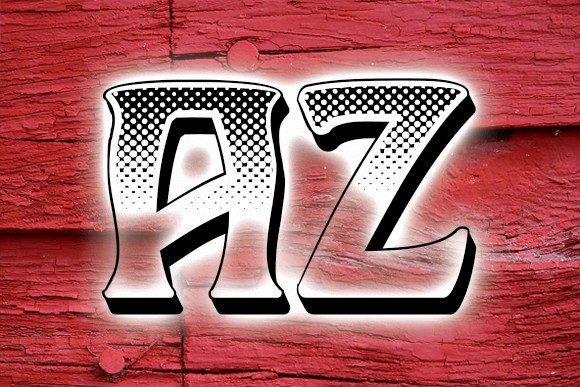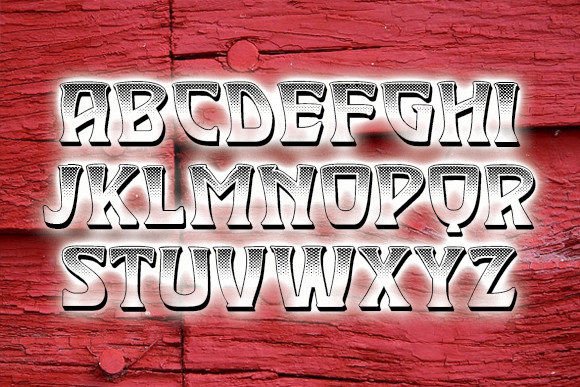
The Perfect Blend of Retro and Modern Design
Have you ever stared at a blank canvas, waiting for the perfect idea to strike? The blank page can be intimidating, but sometimes it’s in those moments of silence that we stumble upon something truly special. For designers, finding the right font can be just as elusive, but what if you stumbled upon a font that transports you back in time while still feeling remarkably modern?
Meet the Doorless Font, a retro-inspired typeface that’s sure to add a touch of nostalgia to your designs. Whether you’re creating posters, flyers, or even t-shirts, this font is the perfect addition to your toolkit. Its unique blend of vintage charm and modern sensibilities makes it a valuable asset for any designer looking to add some personality to their work.
Doorless Font Key Features
- Size: The font family consists of 14 styles, ranging from Extra Light to Black, allowing users to choose the perfect weight for their design needs.
- Resolution: Doorless Font is designed to be scalable, making it suitable for use in various resolutions, from screen displays to high-quality print materials.
- Unique Characteristics: Doorless Font features a distinctive, modern design with subtle rounded edges and a friendly feel, making it an excellent choice for digital and print projects.
- Language Support: The font family supports a wide range of languages, including Latin, Cyrillic, and Greek scripts, making it a versatile option for global communication.
Doorless Font Review
As a designer, I’ve had the chance to experiment with the Doorless Font, and I’m here to share my honest thoughts.
- The unique, hand-drawn feel of Doorless Font gives it a distinct personality that’s hard to find in more traditional fonts.
- The font’s fluidity and connection to the letterforms create a sense of flow that’s visually appealing.
- The bold and condensed weights make it perfect for headings and titles, adding a touch of sophistication to any design.
- The font’s irregularities can make it challenging to read at small sizes or in environments with a lot of noise.
- The condensed weights can feel a bit cramped in certain contexts, such as body text or captions.
Overall, Doorless Font is a great addition to any designer’s toolkit. While it may not be perfect for every project, its unique charm and versatility make it a great choice for creatives looking to add some personality to their designs. With a bit of care and consideration, Doorless Font can elevate even the most mundane designs to new heights.
Doorless Font Practical Application Guide
For the best results, use Doorless Font for creative projects that require a unique and eye-catching font style. It’s perfect for logos, branding materials, and advertising campaigns. You can also use it to add a personal touch to your social media graphics and presentations.
Alternatives to Doorless Font
Doorless Font is a sans-serif font known for its simplicity and clean lines. However, designers may seek alternatives for specific projects or preferences. Here are a few options:
Q: What is the recommended font size for using Doorless Font?
The recommended font size for Doorless Font varies depending on the application and the intended use. However, as a general guideline, we recommend using font sizes between 14px and 24px for body text, and 18px to 36px for headings. This will ensure optimal readability and usability.